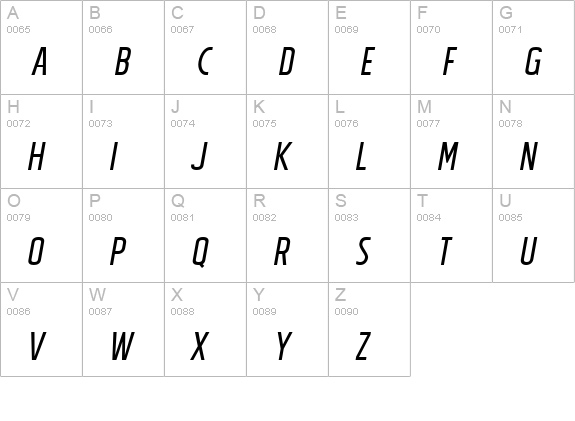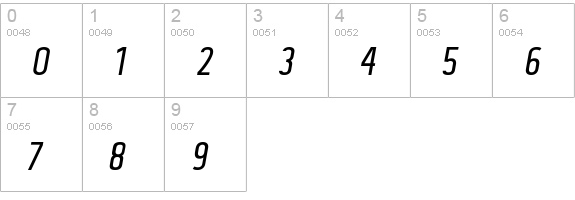
Tolyer Book no.4 Oblique is a comfortable, highly readable, italic variant in the Tolyer typeface family \xE2\x80\x94 well suited to long-form body text, articles, and editorial content.
Introducing Tolyer Book no.4 Oblique font - a sleek and modern typeface that exudes elegance and sophistication. Perfect for adding a touch of style to any project, this font features clean lines and a unique slant that sets it apart from the rest. Whether you're designing a book cover, creating a logo, or crafting a poster, Tolyer Book no.4 Oblique is sure to make a statement. Best of all, this stunning font is completely free to download at FontsMarket.com. Simply head over to the website and grab your copy today to elevate your designs to the next level. Don't miss out on this fantastic opportunity to enhance your creative projects with the beauty and versatility of Tolyer Book no.4 Oblique font.